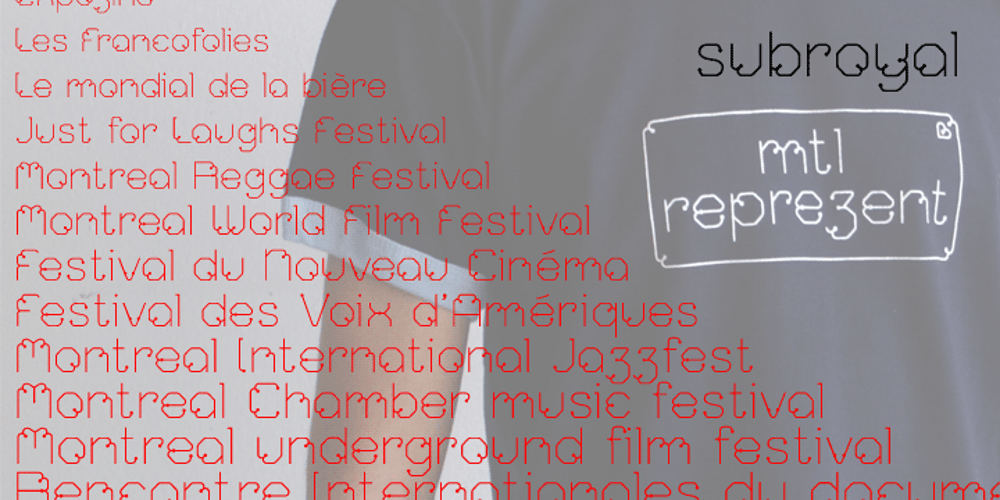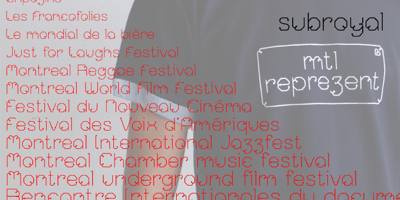
Subroyal
Subroyal font
Subroyal Font Family was designed by Valérie Desrochers, Sébastien Théraulaz, Frederic Fivaz and published by Subtitude. Subroyal contains 1 styles and family package options. Subroyal was inspired by the official logo of the City of Montreal. The idea came to us while reading an article about a revised version of this logo that didn’t have any original typography. We realized it was our civic duty to bring the City logo to life, and the result is a fairly romantic font that reminds us of the many parks around the island, its fragile snowflakes, and its electronic music scene. Voilà! Montreal has its first custom-made (non-official) font package.